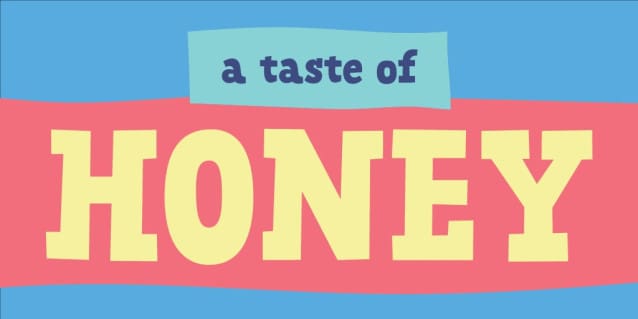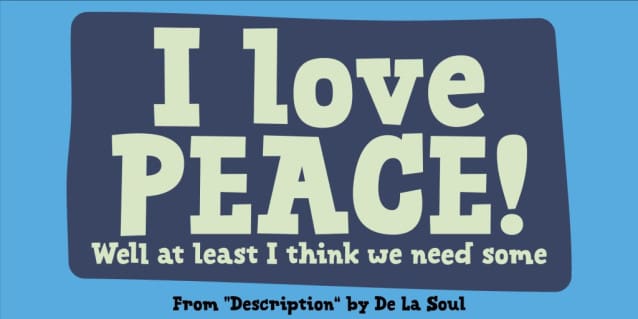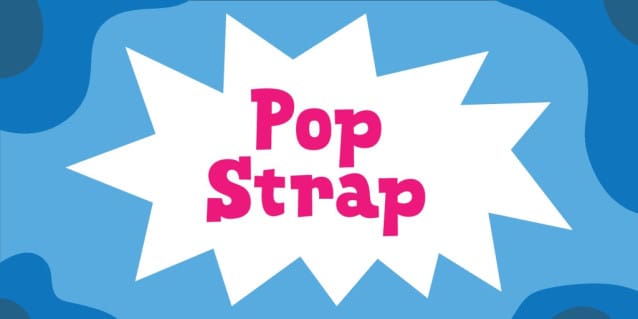
Pop Strap Font
Pop Strap Font is my happy, kind of wacky and cartoonish serif font. Use it for your book covers, posters and packaging – even the eco ones … actually whatever you think may need a fresh touch.